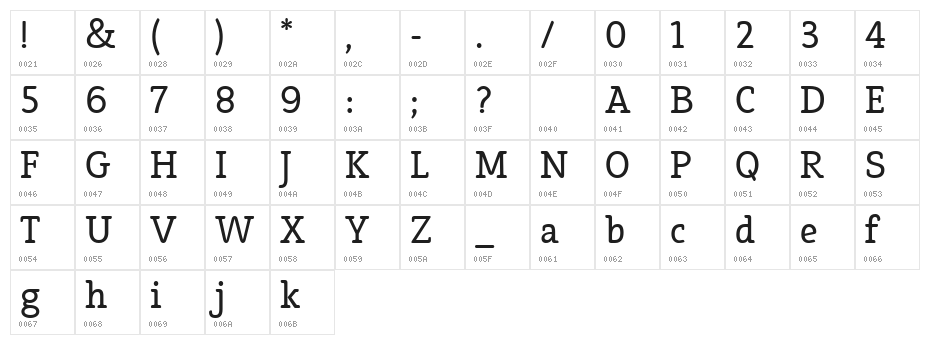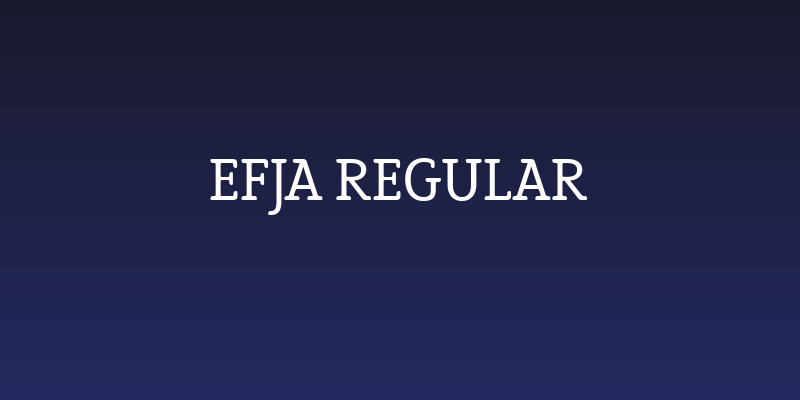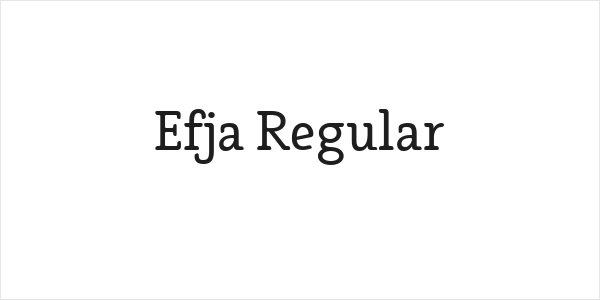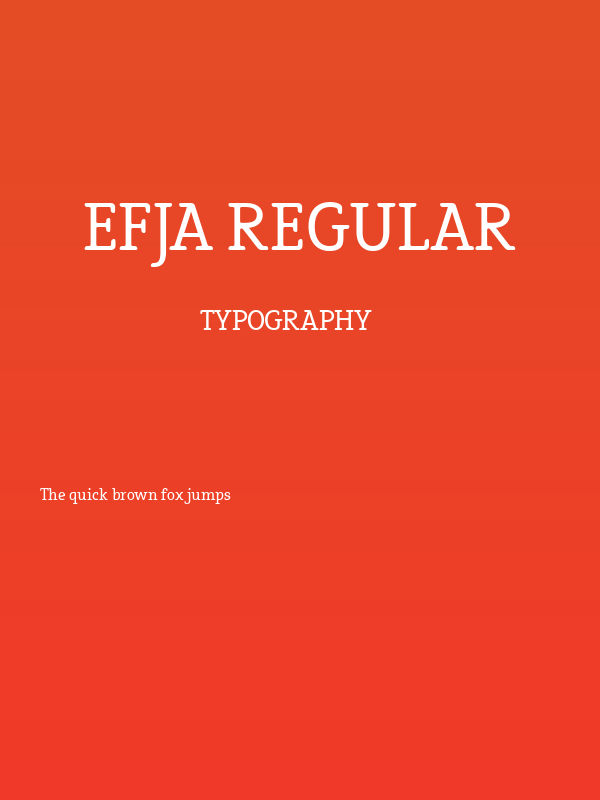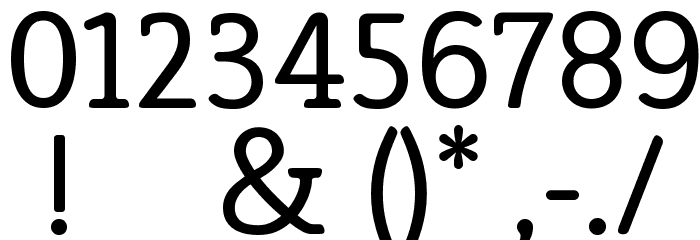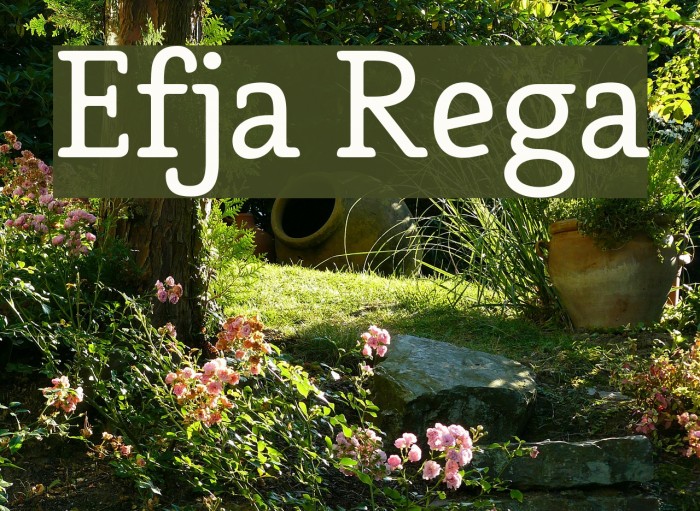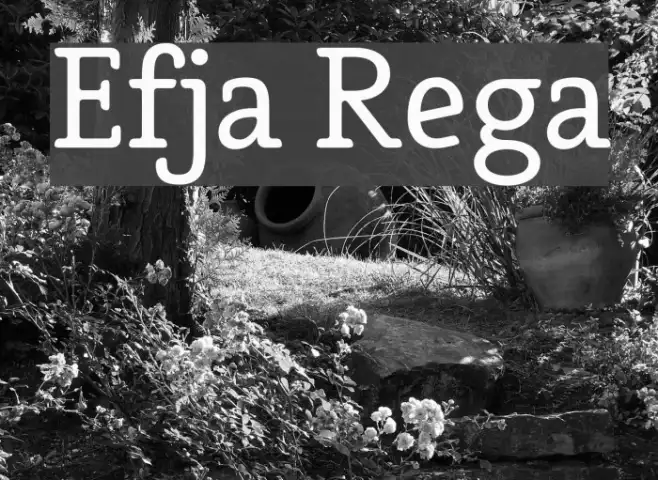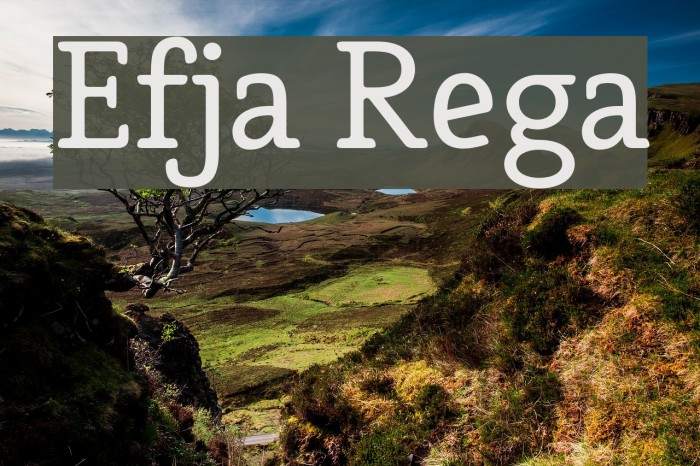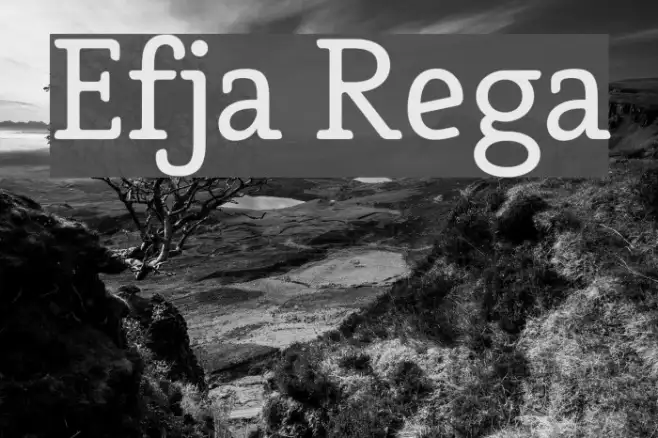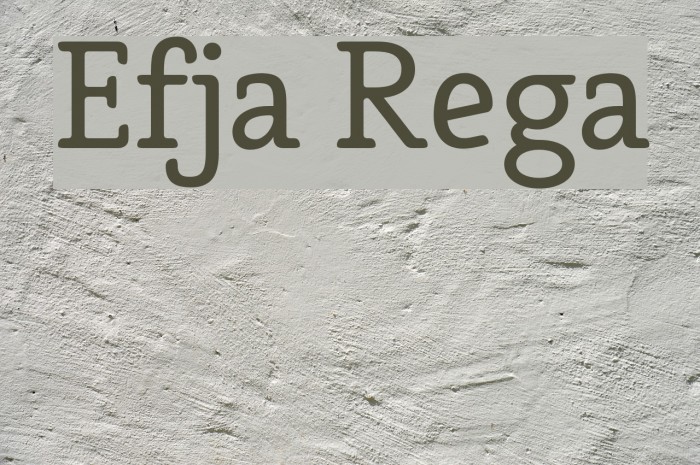
Efja Regular Font
Efja Regular Description
This font features a clean and modern design with a touch of classic elegance. The characters are well-balanced with a consistent stroke width, giving it a uniform appearance. The rounded edges and smooth curves add a friendly and approachable feel, making it versatile for various applications. The uppercase letters are bold and prominent, while the lowercase letters maintain a harmonious flow. Numbers are clear and easily distinguishable, and the special characters are crafted to match the overall aesthetic. This font is suitable for both digital and print media, offering readability and style.